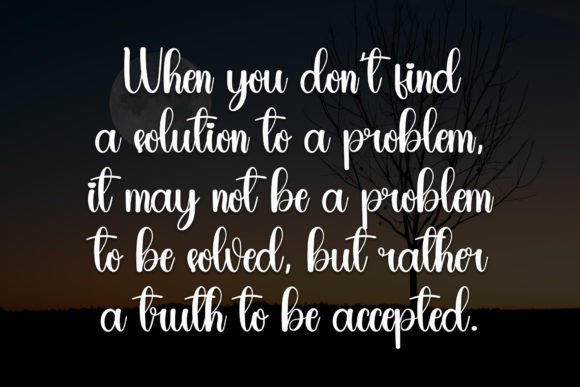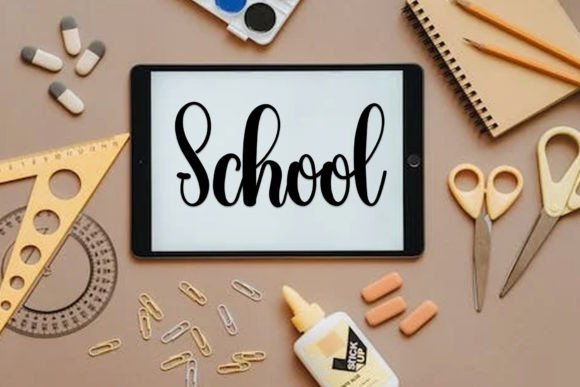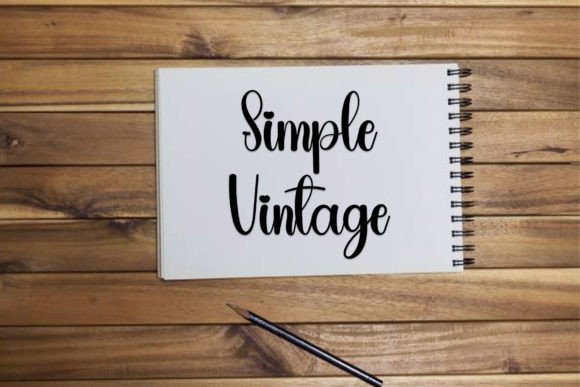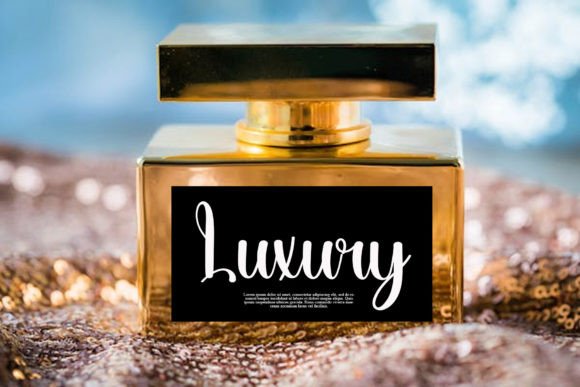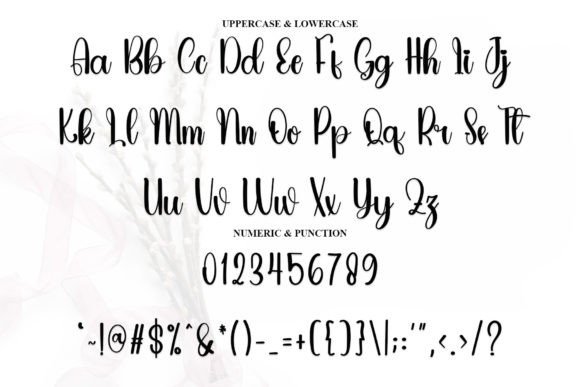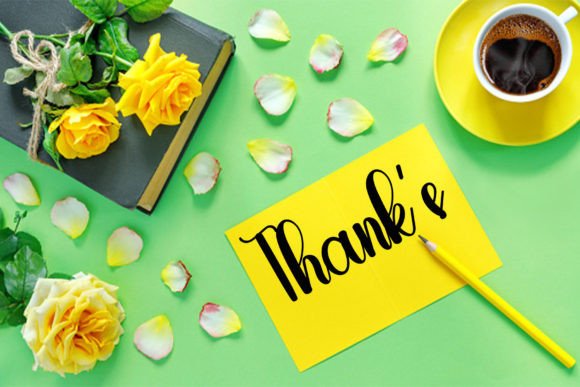
Baby Sunshine Font: Elevate Your Designs with Elegance and Charm
In the world of typography, few fonts manage to capture the essence of warmth and sophistication as effortlessly as Baby Sunshine. This stylish font is designed to bring an air of elegance and charm to any design, making it a perfect choice for creatives and designers looking to add a personal touch to their projects. Whether you’re working on invitations, branding materials, or social media content, Baby Sunshine is sure to leave a lasting impression.
The Unique Characteristics of Baby Sunshine Font
Baby Sunshine stands out from the crowd with its fluid strokes and natural flow, which come together to create a captivating and sophisticated look. The font’s design is characterized by:
- Fluid Strokes: The smooth, flowing lines of Baby Sunshine give it a dynamic and organic feel, making it perfect for designs that require a touch of elegance.
- Natural Flow: The font’s natural flow ensures that it looks great in various contexts, from headings and titles to body text.
- Elegant Charm: Baby Sunshine exudes a sense of charm and sophistication, making it ideal for designs that require a personal touch.
Baby Sunshine’s versatility makes it suitable for a wide range of design applications. Here are some of the ways you can use this beautiful font:
- Invitations: Add a touch of elegance to your wedding invitations, birthday party invites, or baby shower announcements.
- Branding: Use Baby Sunshine to create a unique and memorable brand identity for your business or product.
- Social Media: Elevate your social media content with eye-catching graphics and posts that showcase your creativity.
- Crafting and DIY Projects: Perfect for crafters and DIY enthusiasts, Baby Sunshine can be used to add a personal touch to handmade cards, scrapbooking, and other paper crafts.
Why Choose Baby Sunshine Font?
With so many fonts available, why choose Baby Sunshine? Here are a few compelling reasons:
- Unique Style: Baby Sunshine offers a distinctive style that sets it apart from more traditional fonts.
- Ease of Use: The font is easy to read and works well in various sizes, making it perfect for both print and digital applications.
- Customization: Baby Sunshine can be easily customized to fit your design needs, allowing you to experiment with different colors, textures, and effects.
Tips for Using Baby Sunshine Font Effectively
To get the most out of Baby Sunshine, consider the following tips:
- Pair with Complementary Fonts: Combine Baby Sunshine with complementary fonts to create visual interest and hierarchy in your designs.
- Experiment with Colors: Try out different colors and textures to add depth and personality to your designs.
- Use for Headings and Titles: Baby Sunshine is perfect for headings and titles, where its elegant charm can shine.
Baby Sunshine Font is a stylish and elegant addition to any designer’s toolkit. Its fluid strokes, natural flow, and charming personality make it perfect for a wide range of design applications, from invitations and branding to social media and crafting projects. With its unique style, ease of use, and customization options, Baby Sunshine is sure to bring warmth and creativity to your designs. So why wait? Discover the beauty of Baby Sunshine Font and elevate your designs to new heights.